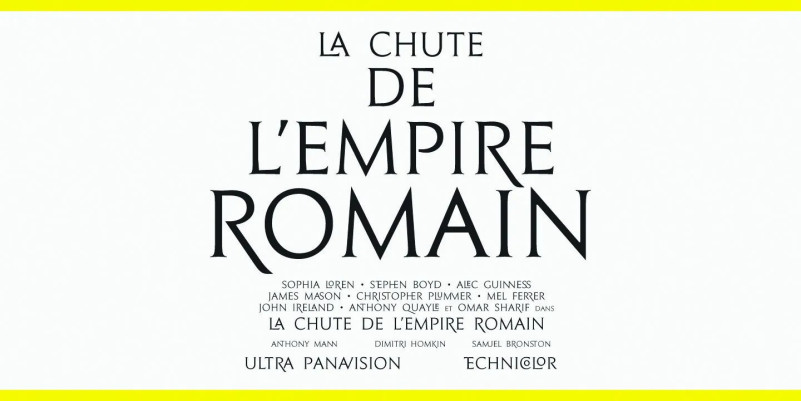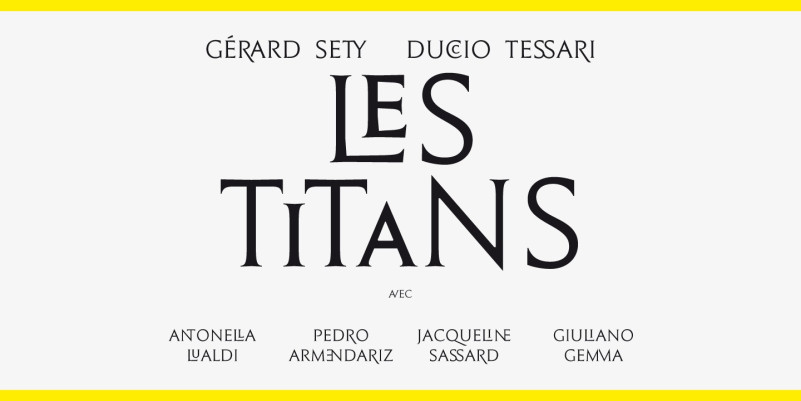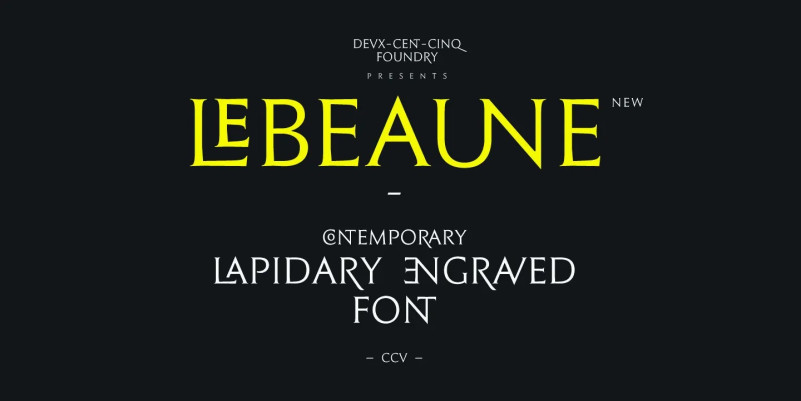
Le Beaune New Font
Le Beaune New Font designed and shared by 205tf. This concise typeface was originally designed for the eponymous city in Bourgogne, in 1995. Ultimately it was never used as planned for the signage in the municipal buildings.